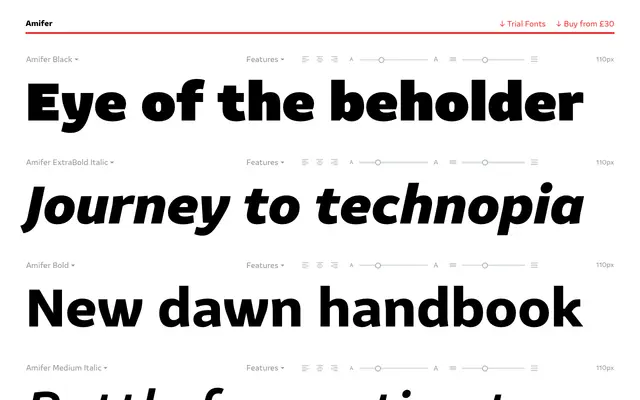
Amifer
A quirky, informal humanist sans by Alessia Mazzarella, released in 2020 across five weights with matching italics.
Designed by Alessia Mazzarella and released in October 2020, Amifer spans ten styles from Regular to Black with full italic companions. Its character sits between humanist warmth and informal idiosyncrasy, making it a reasonable choice for editorial, branding or interface work that calls for a sans with personality rather than neutrality. Variable font axes are available alongside static OTF, TTF, WOFF and WOFF2 formats.
Typeland classify it as Sans with a quirky, informal character; its letterforms show humanist tendencies with idiosyncratic details that give it a distinctive personality rather than a neutral geometric or grotesque structure.